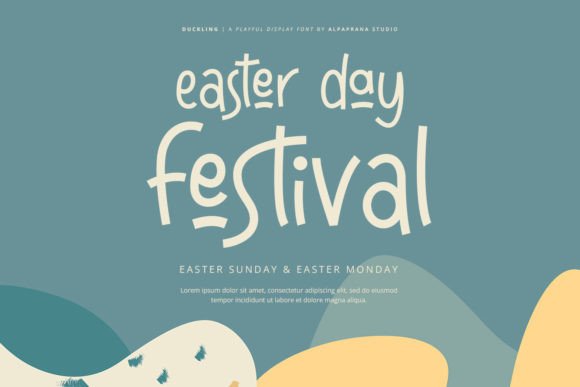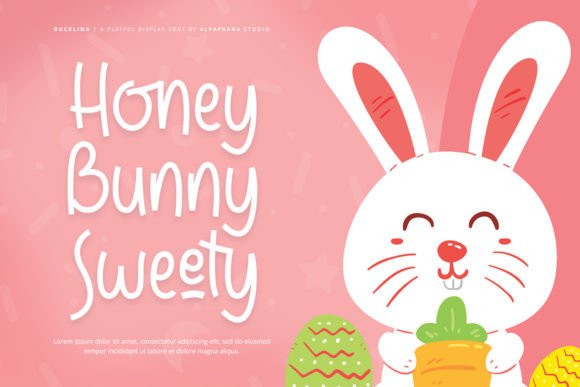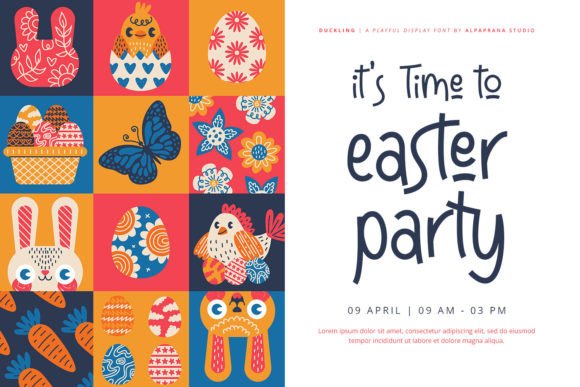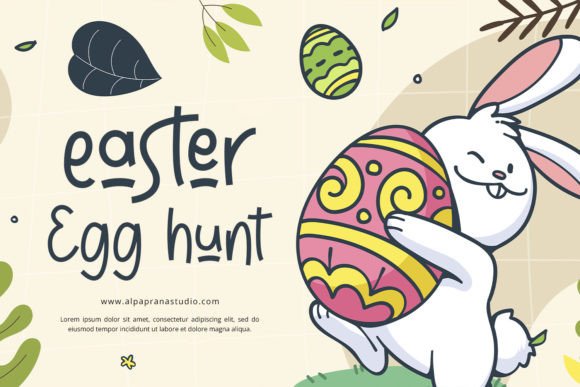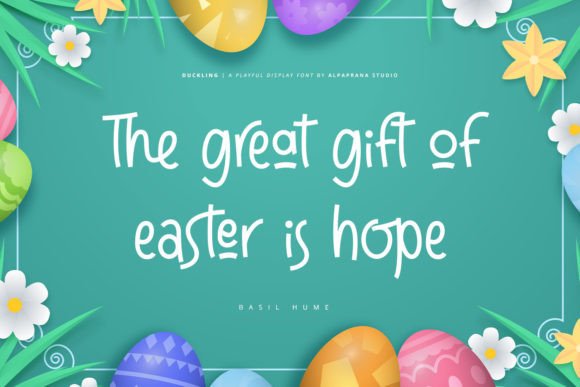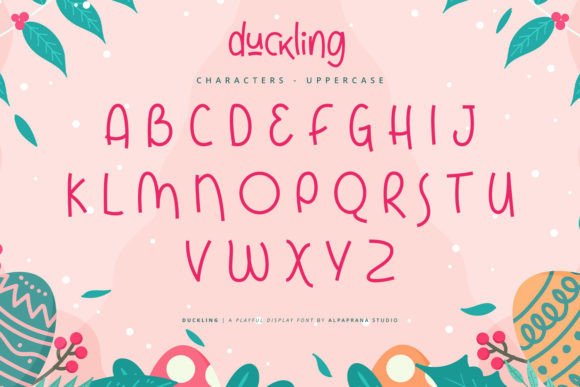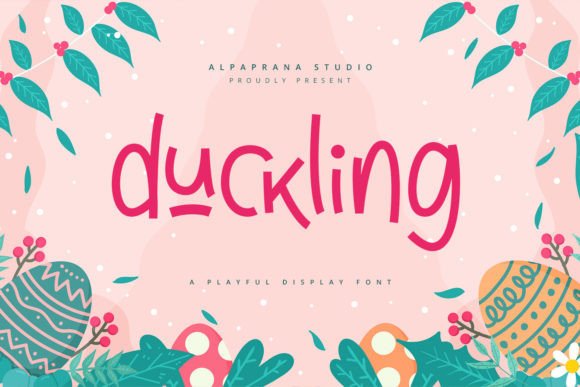
Duckling Font: The Ultimate Playful Display Font for Creative Design Projects
Are you a designer or crafter looking for a font that can add a touch of playfulness and fun to your creative projects? Look no further than the Duckling Font! This delightful display font is perfect for a wide range of design applications, from branding and logo design to lettering, logotype, and more.
What is Duckling Font?
Duckling Font is a carefully crafted display font that exudes a sense of fun and playfulness. Its unique and quirky design makes it an excellent choice for designers and crafters who want to add a personal touch to their work. Whether you’re creating a logo, designing a poster, or crafting a brand identity, Duckling Font is sure to make your project stand out.
Duckling Font is a versatile font that can be used for a variety of design projects, including:
- Branding: Create a memorable brand identity with Duckling Font’s unique and playful design.
- Logo Design: Design a logo that stands out from the crowd with Duckling Font’s fun and quirky feel.
- Lettering: Add a personal touch to your lettering projects with Duckling Font’s playful and creative design.
- Logotype: Create a logotype that perfectly represents your brand with Duckling Font’s customizable design.
- Clothing: Design eye-catching apparel with Duckling Font’s bold and playful design.
- Posters: Create posters that grab attention with Duckling Font’s fun and creative design.
- Magazine: Add a touch of playfulness to your magazine design with Duckling Font’s unique and quirky feel.
- Packaging: Design packaging that stands out on store shelves with Duckling Font’s bold and playful design.
- Shopping Bags: Create reusable shopping bags that make a statement with Duckling Font’s fun and creative design.
- T-Shirts: Design t-shirts that are sure to turn heads with Duckling Font’s bold and playful design.
- Book Covers: Create book covers that perfectly represent the story within with Duckling Font’s customizable design.
- Photography: Add a touch of playfulness to your photography projects with Duckling Font’s unique and quirky feel.
- Special Events: Create event branding that perfectly represents the occasion with Duckling Font’s fun and creative design.
Why Choose Duckling Font?
So why choose Duckling Font for your design projects? Here are just a few reasons:
- Unique Design: Duckling Font features a unique and quirky design that will make your project stand out from the crowd.
- Playful Feel: Duckling Font has a fun and playful feel that’s perfect for designers and crafters who want to add a personal touch to their work.
- Versatility: Duckling Font can be used for a wide range of design projects, from branding and logo design to lettering and more.
- Customizable: Duckling Font is fully customizable, allowing you to create a design that perfectly represents your brand or project.
Tips for Using Duckling Font
Here are a few tips for using Duckling Font in your design projects:
- Experiment with Different Sizes: Duckling Font looks great in a variety of sizes, from large display fonts to smaller body text.
- Pair with Other Fonts: Try pairing Duckling Font with other fonts to create a unique and eye-catching design.
- Use for Headlines: Duckling Font is perfect for headlines and titles, where its bold and playful design can really shine.
- Add a Personal Touch: Use Duckling Font to add a personal touch to your design projects, whether it’s a logo, poster, or packaging design.
In conclusion, Duckling Font is a playful display font that’s perfect for designers and crafters who want to add a touch of fun and playfulness to their creative projects. With its unique and quirky design, versatility, and customizable features, Duckling Font is an excellent choice for a wide range of design applications. So why wait? Download Duckling Font today and start creating designs that are sure to stand out from the crowd!